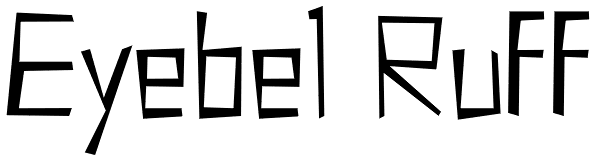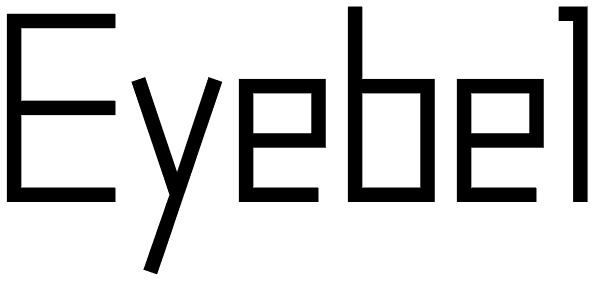
Eyebel
Eyebel was an attempt to form letters as simply as possible using only straight lines but still have them legible. Eyebel-regular is very thin and Eyebel-bold is very bold; both have a boxy look. A third style, Eyebel-Ruff was formed by randomly...
Eyebel Ruff
Eyebel
Eyebel Bold